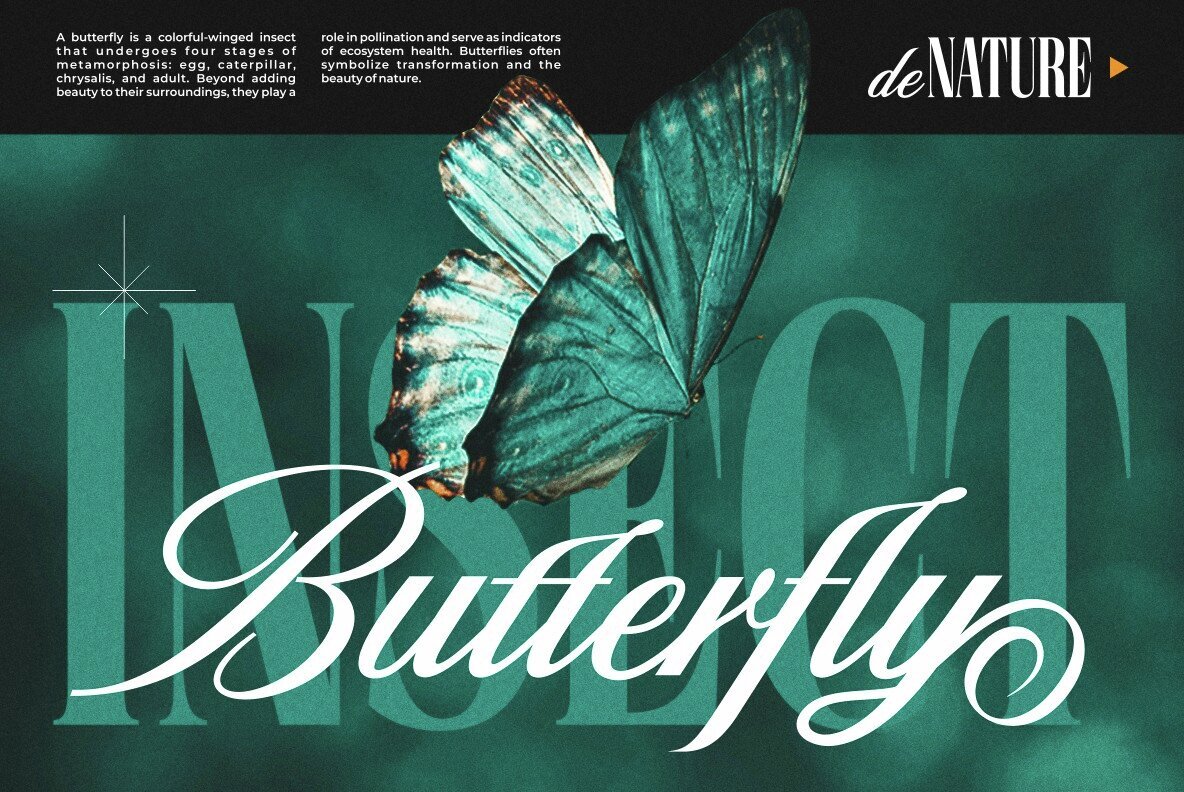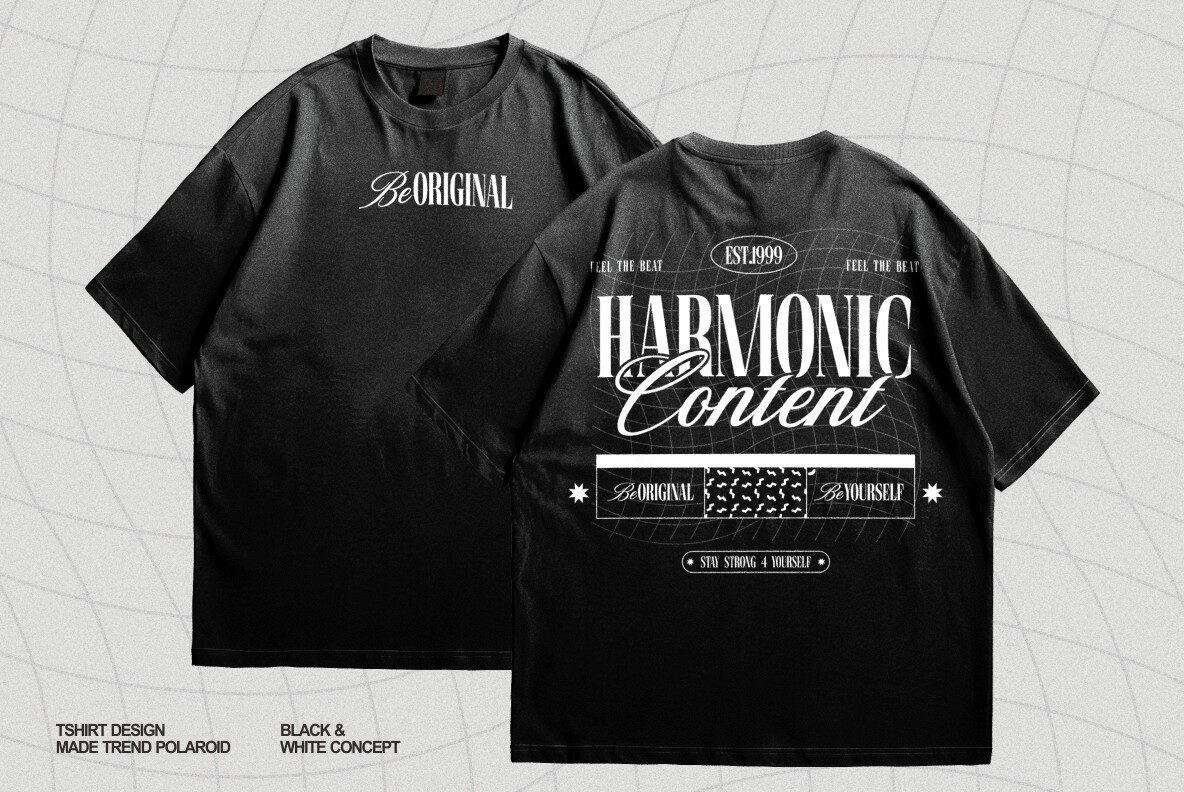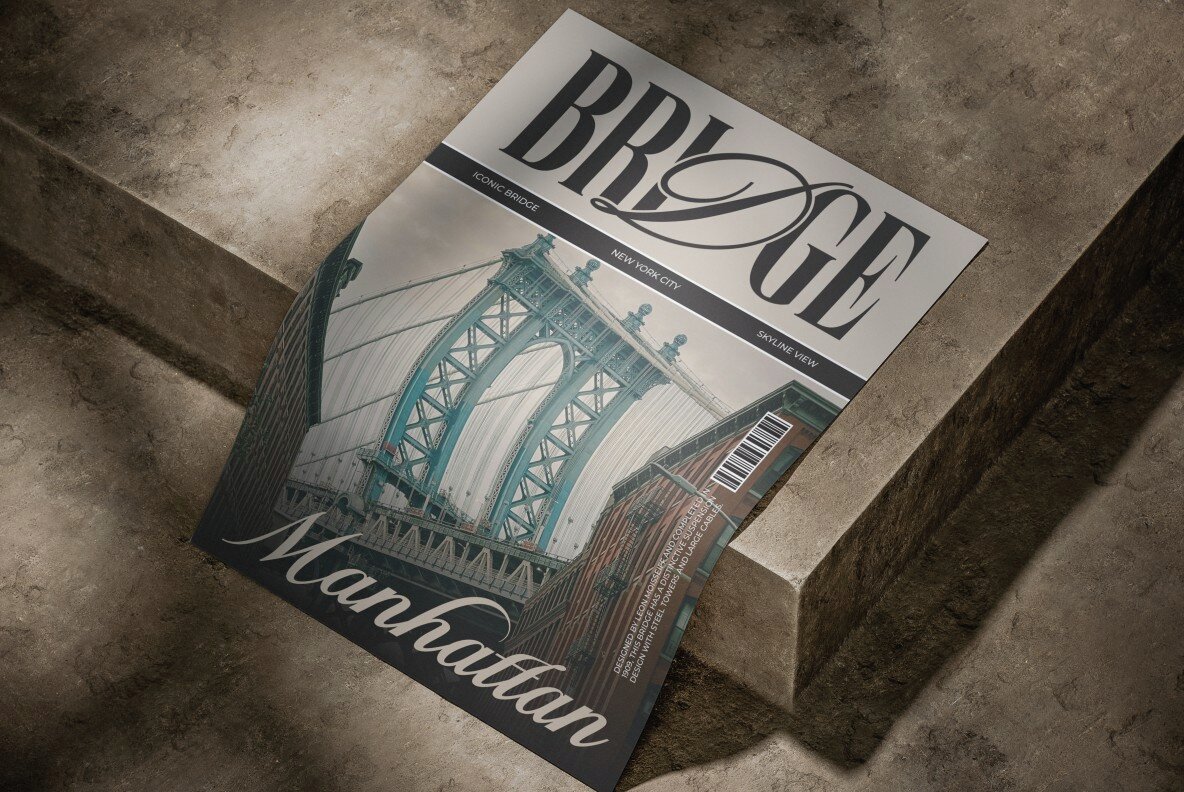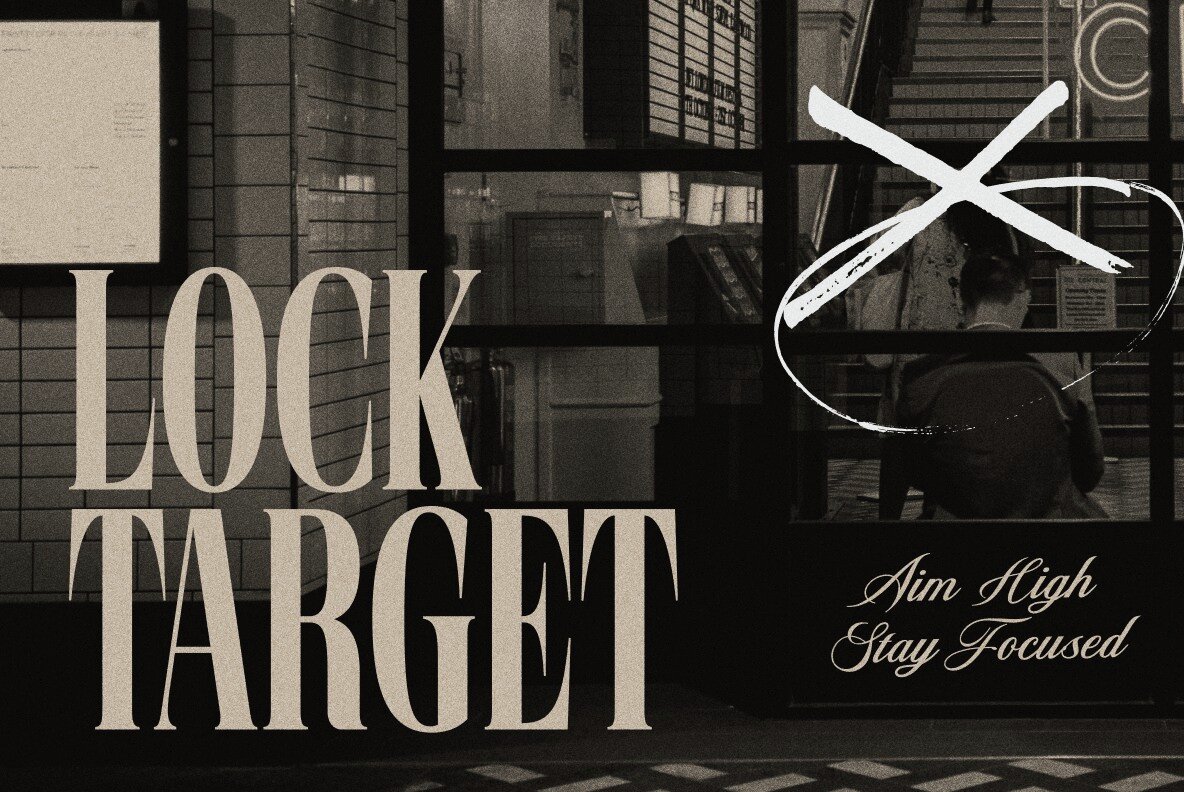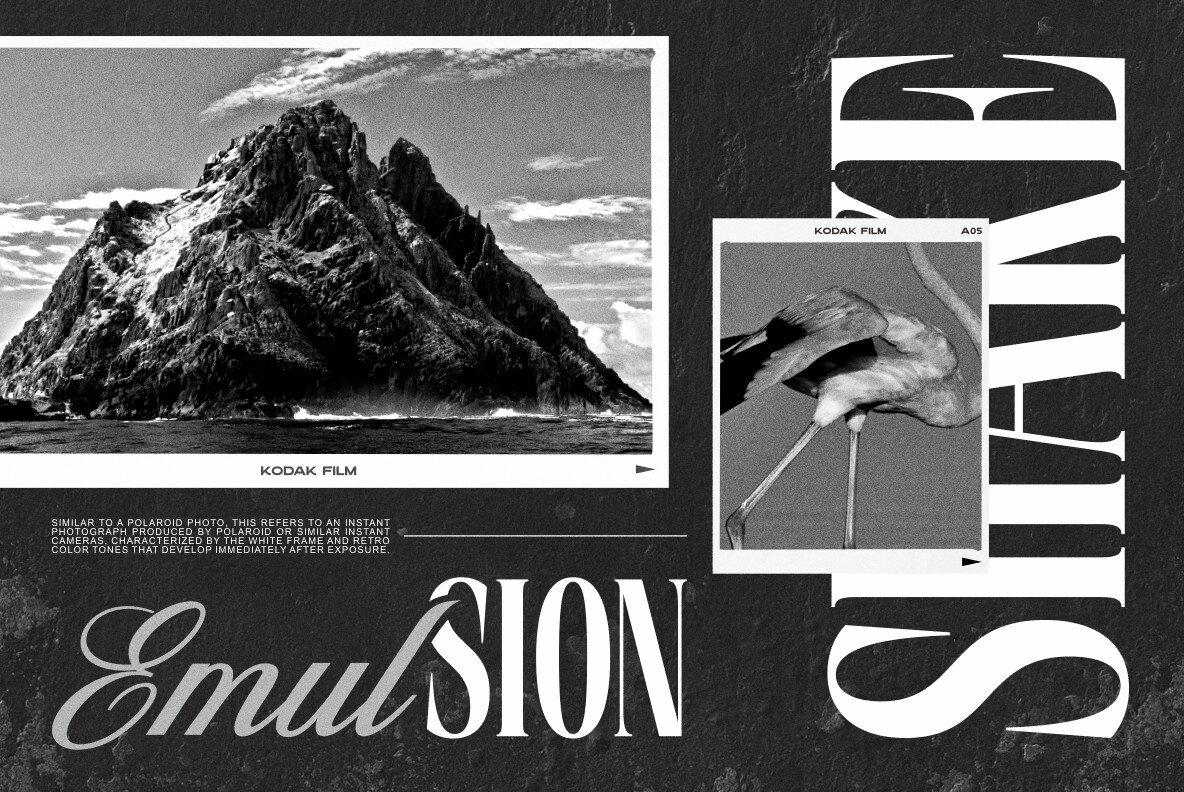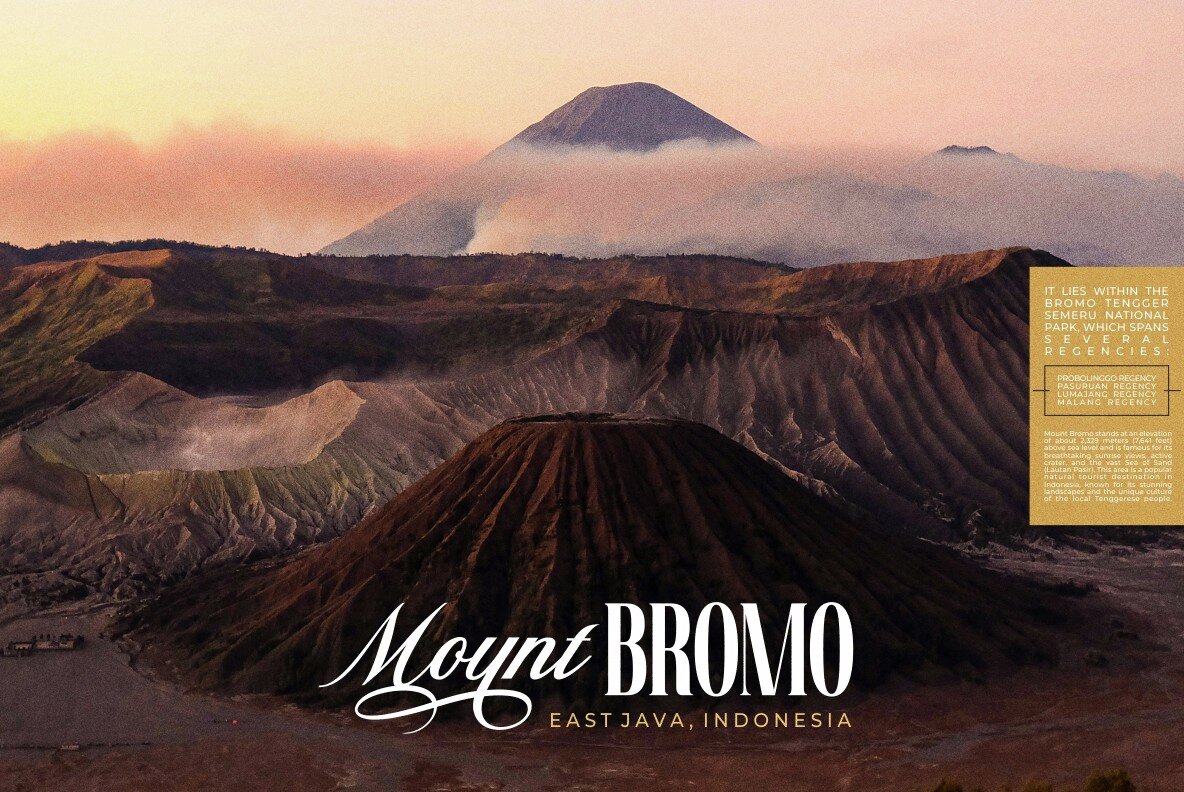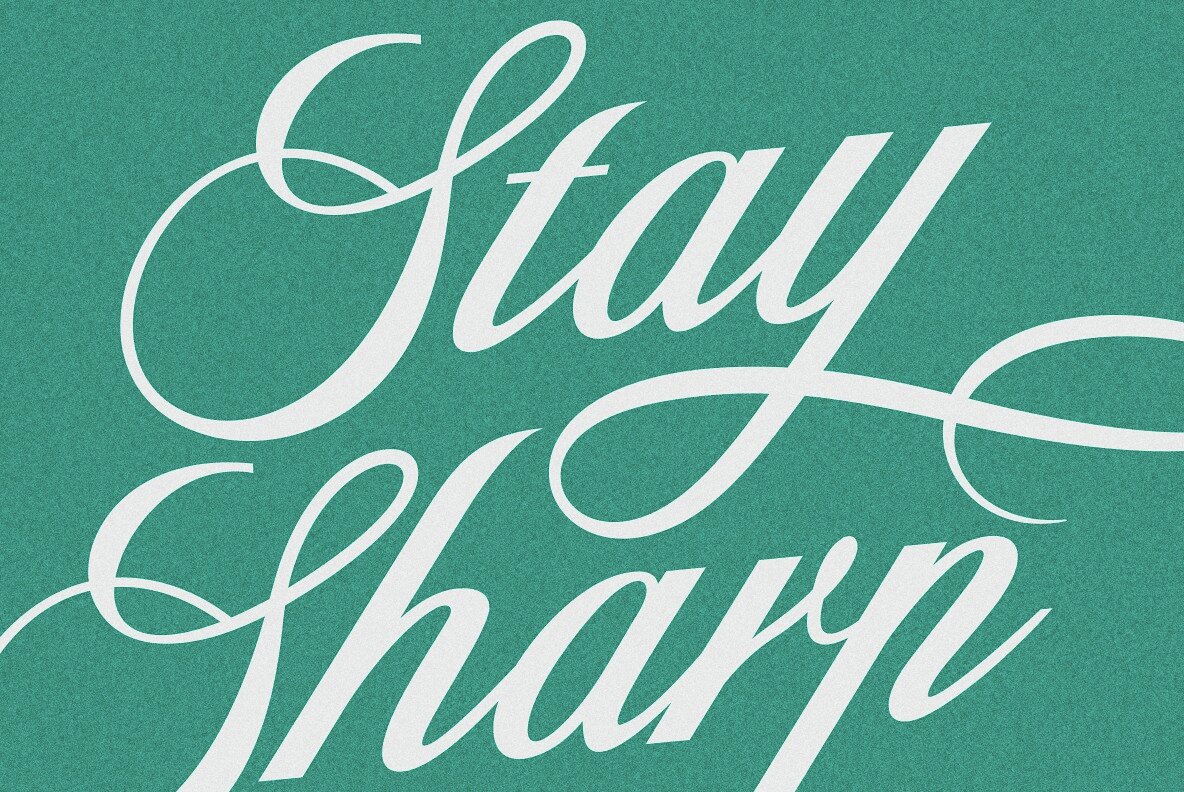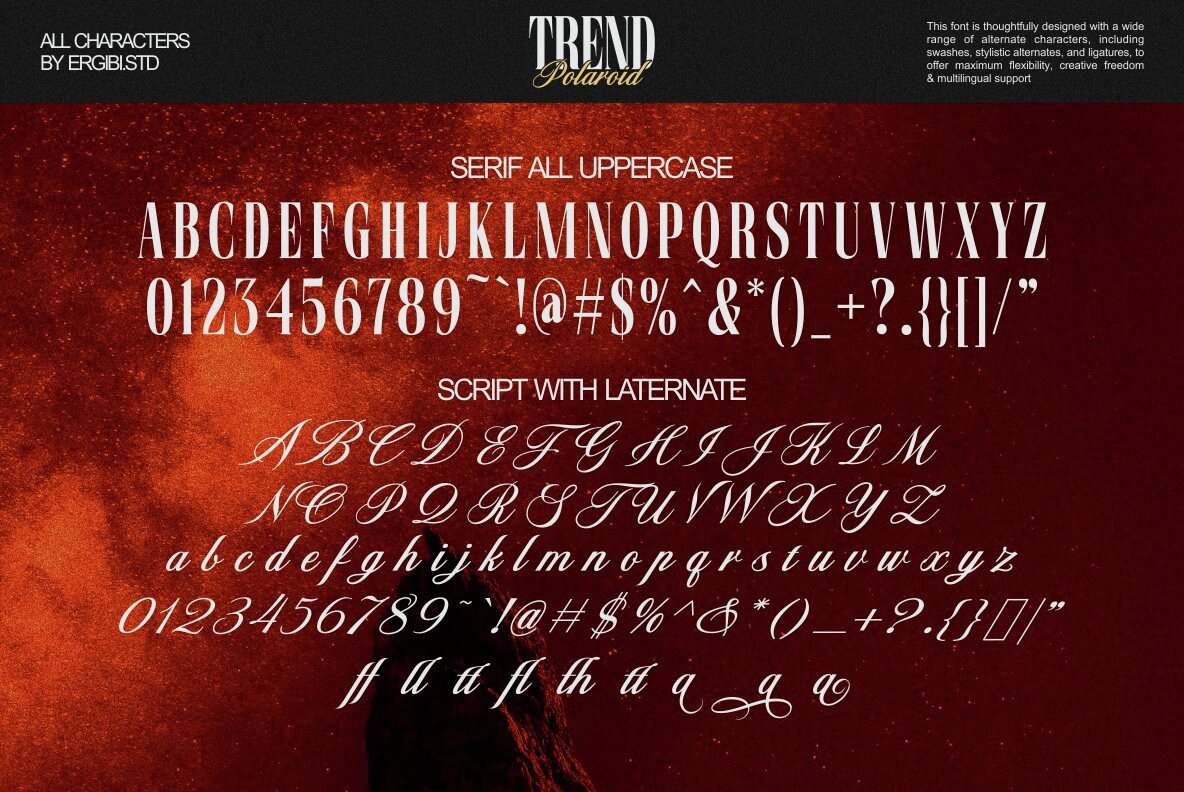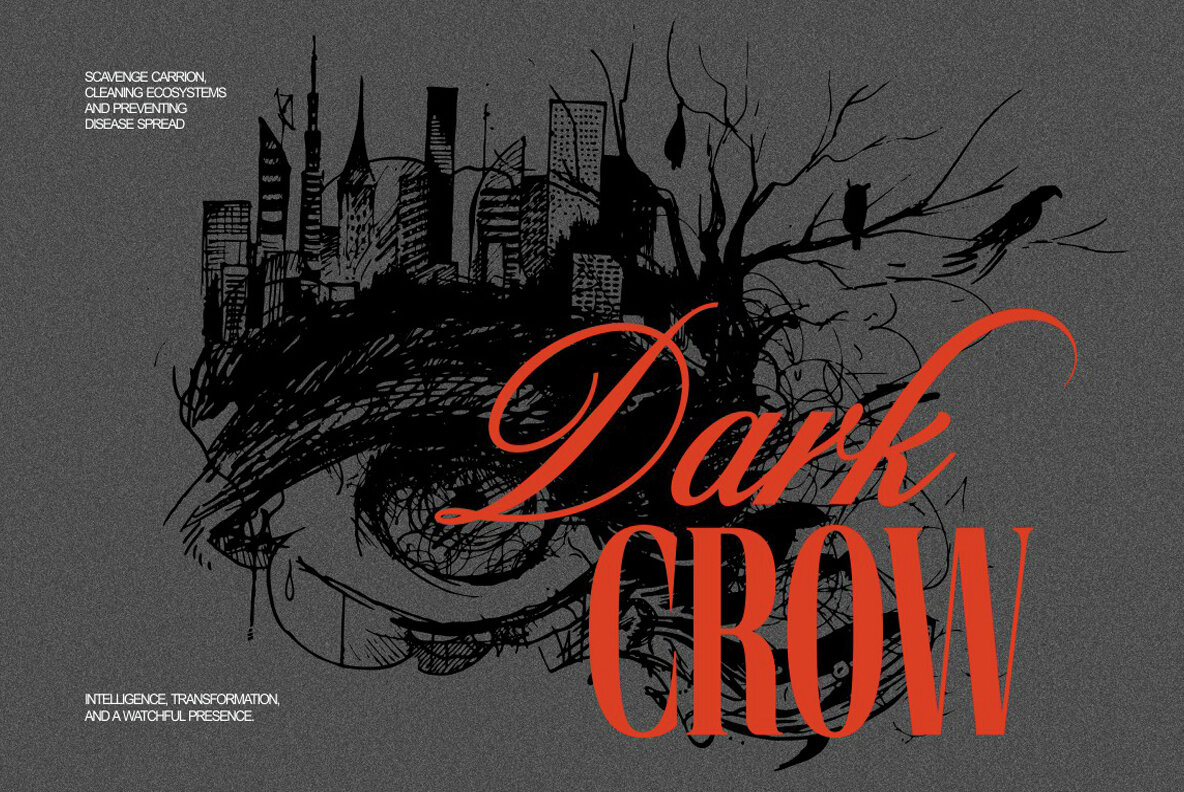
Trend Polaroid Font
Trend Polaroid is a modern duo font that seamlessly fuses the elegance of a refined serif with the bold, edgy flair of a classic script. This versatile pairing creates a timeless appeal with its soft, character-rich script and sophisticated serif, designed with a modern classic theme. Perfectly tailored for dynamic designs, Trend Polaroid adds a luxurious touch that's both sophisticated and approachable, making it ideal for those seeking a fine balance of elegance and urban energy.
Ideal for branding, posters, merchandise, and any creative projects, Trend Polaroid exudes a contemporary and artistic vibe. The font includes standard glyphs, ligatures, and international accents, compatible with both PC and Mac. Effortless to install, this duo font provides a comprehensive toolkit for designers aiming to create impactful and stylish content.